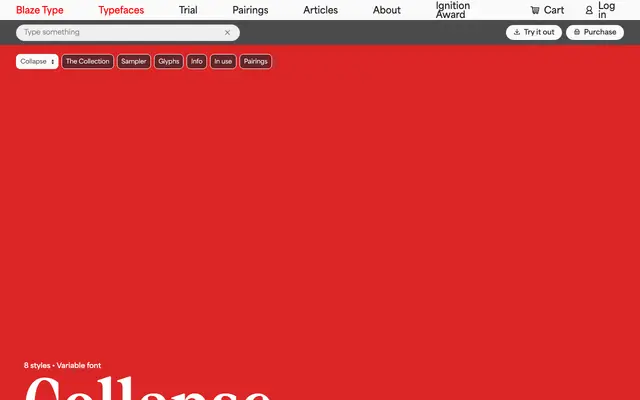
Collapse
A condensed display serif with sharp, high-contrast letterforms drawn in four weights, loosely inspired by the title typography of Neon Genesis Evangelion.
Designed by Axel Keussel Andre and released in 2024, it runs from Thin to Bold with matching italics and is also available as a variable font. The compressed proportions and angular details give it a taut, severe quality suited to editorial headers, posters and title sequences. Coverage extends across Latin European languages.
A condensed serif with sharp, high-contrast letterforms and compressed proportions, sitting in the display serif category with strong expressive and editorial qualities.